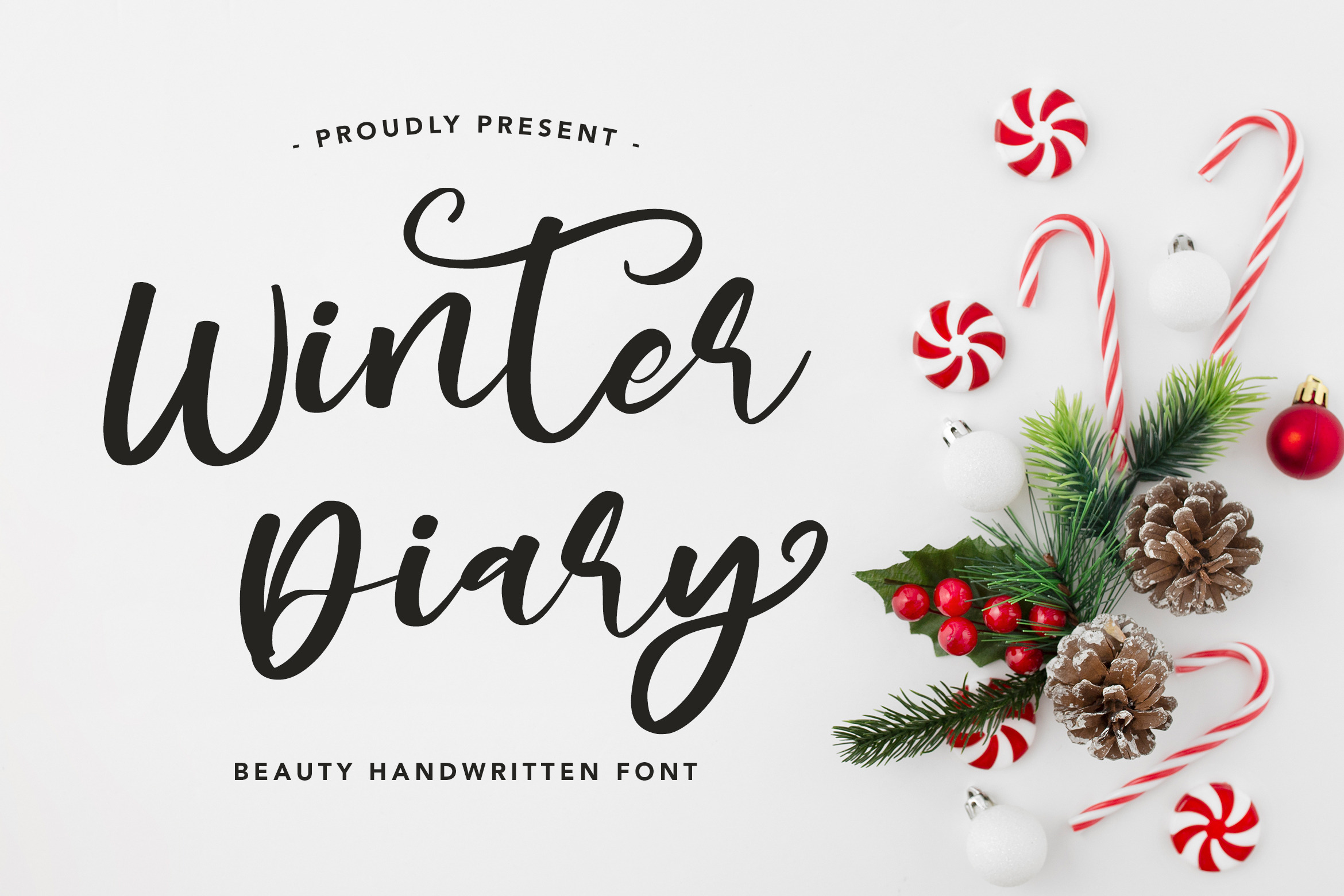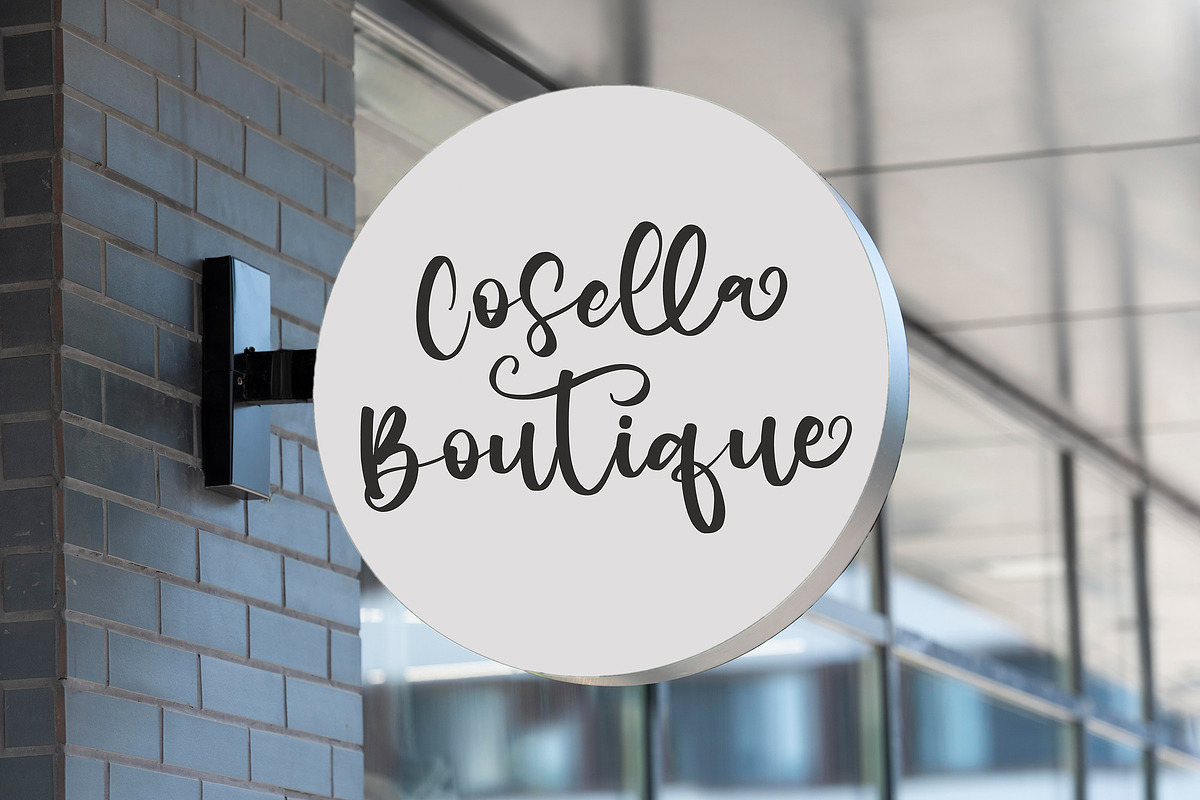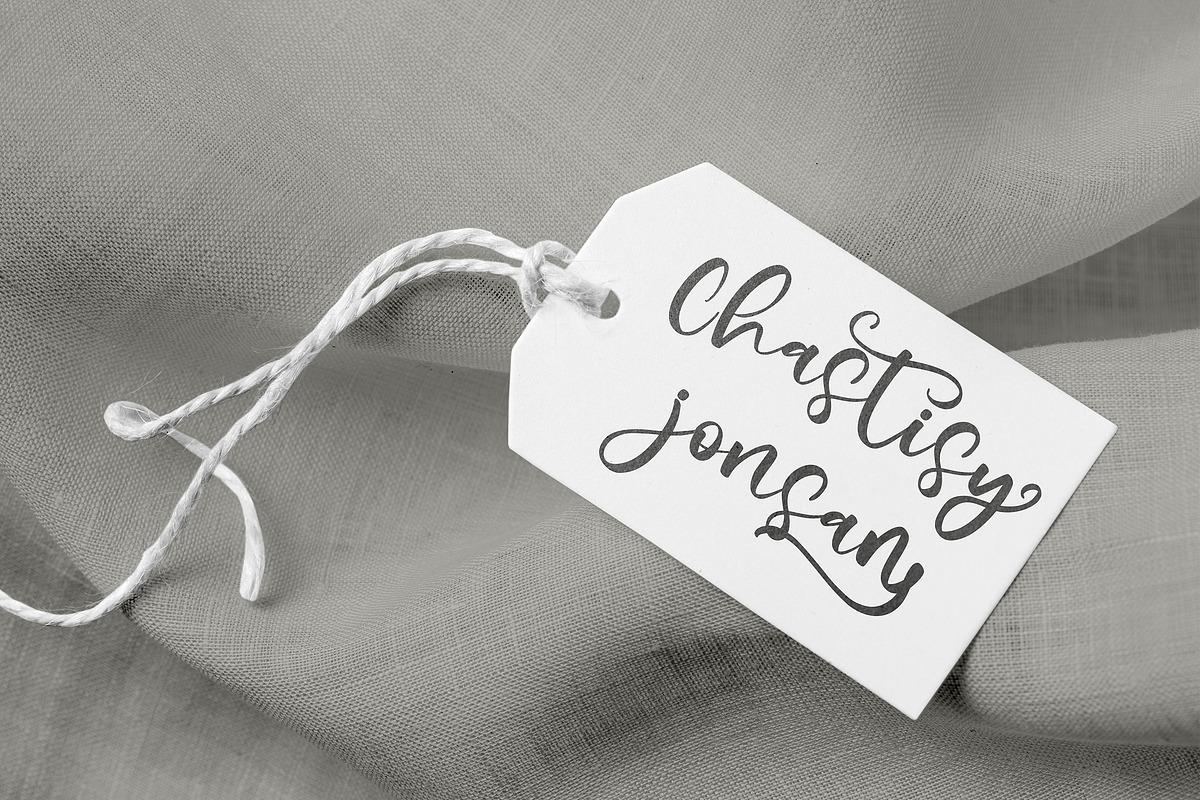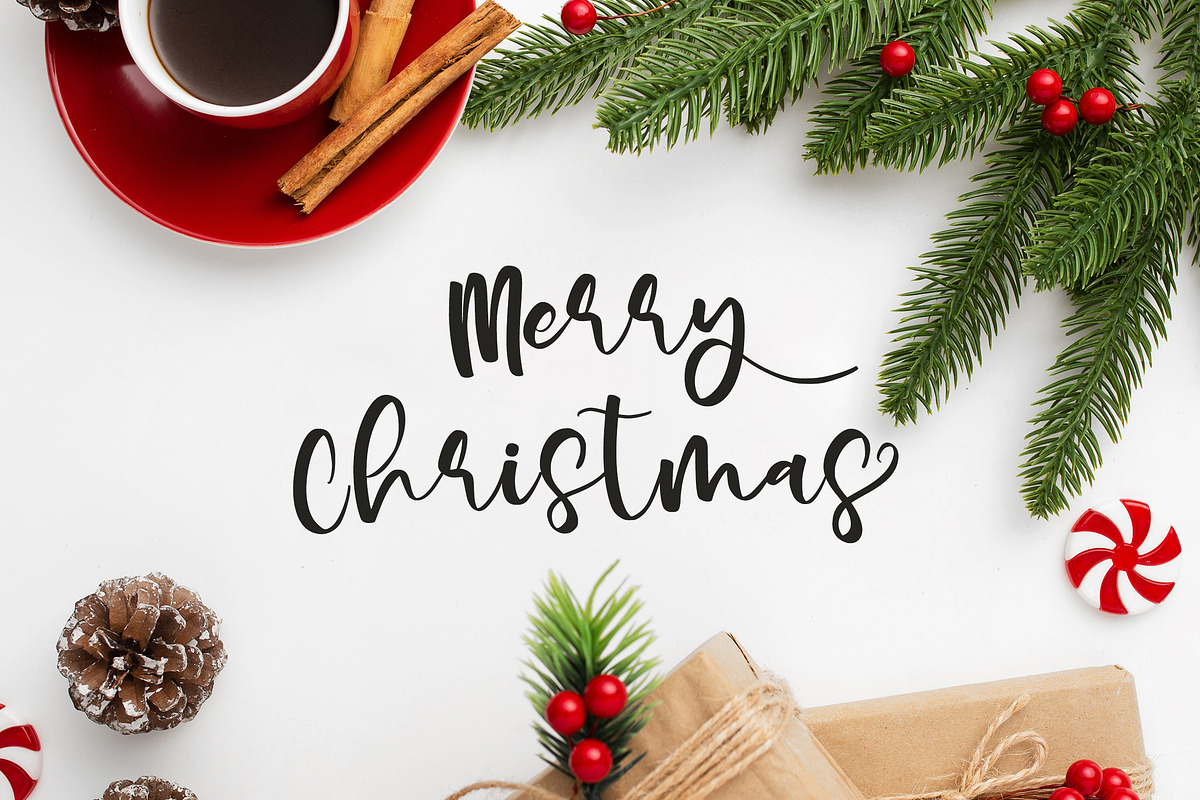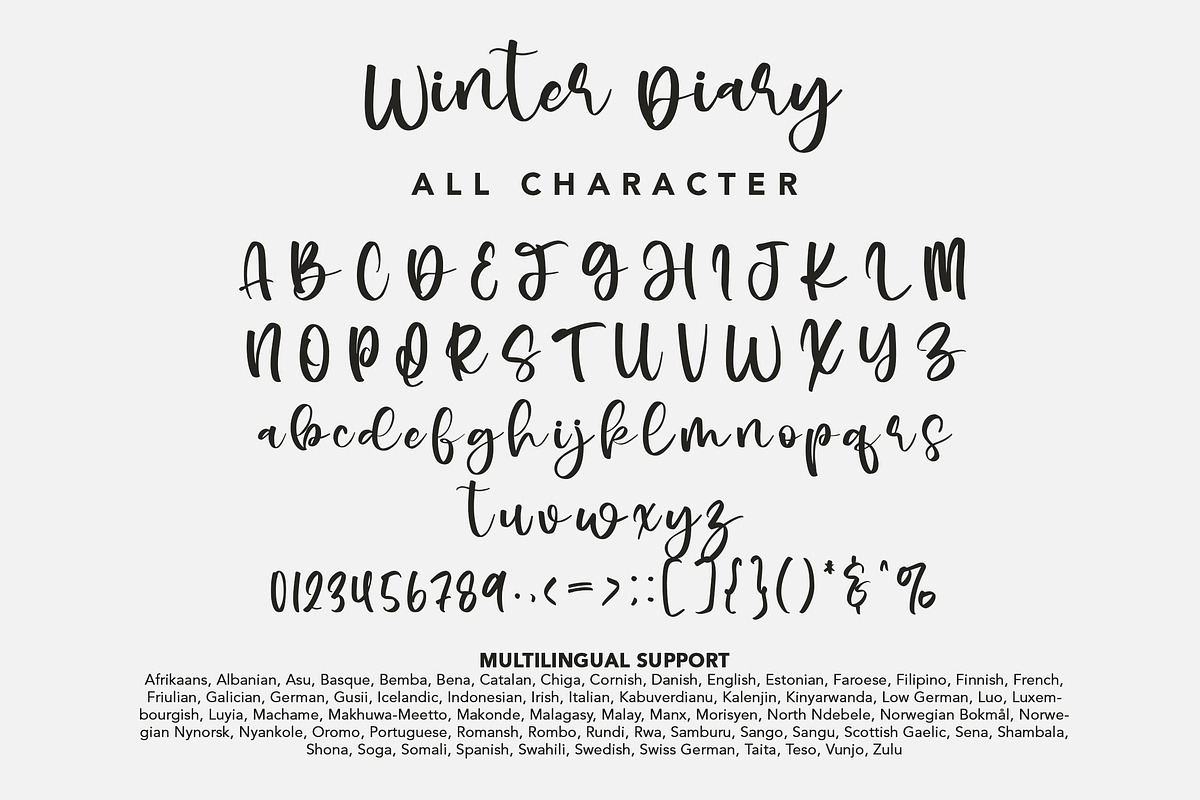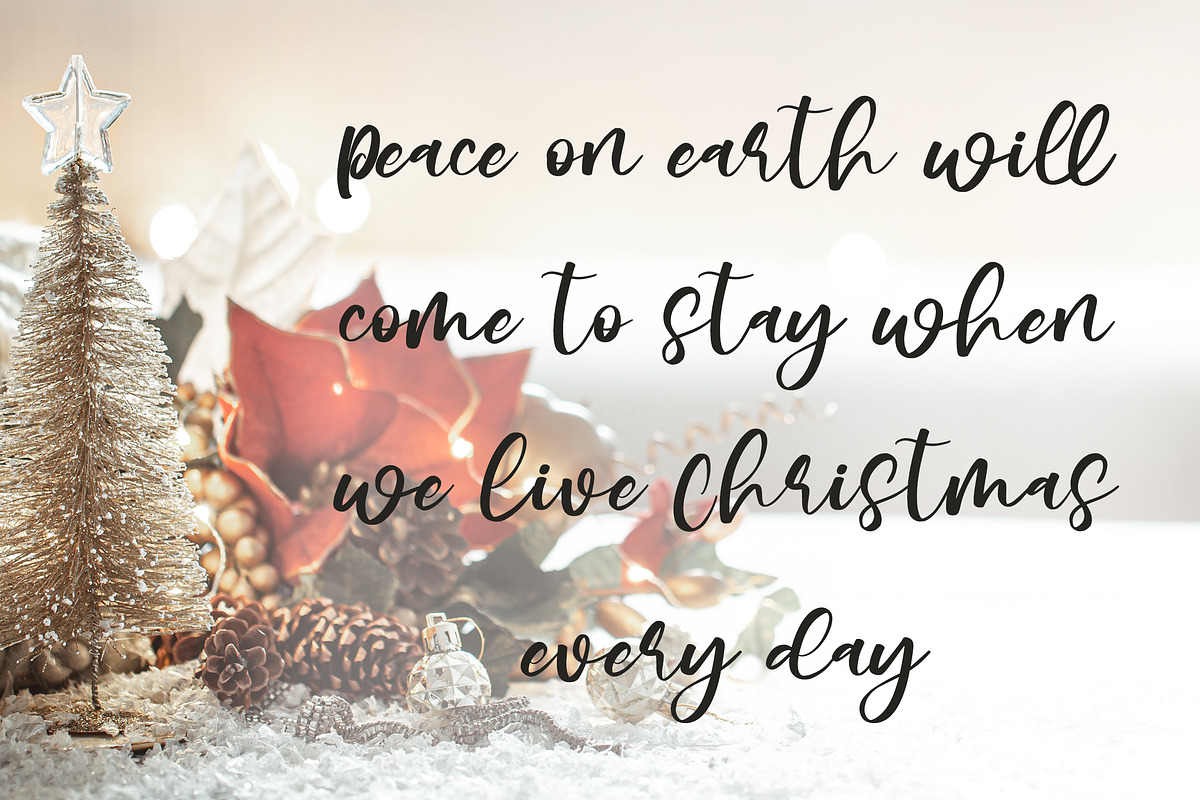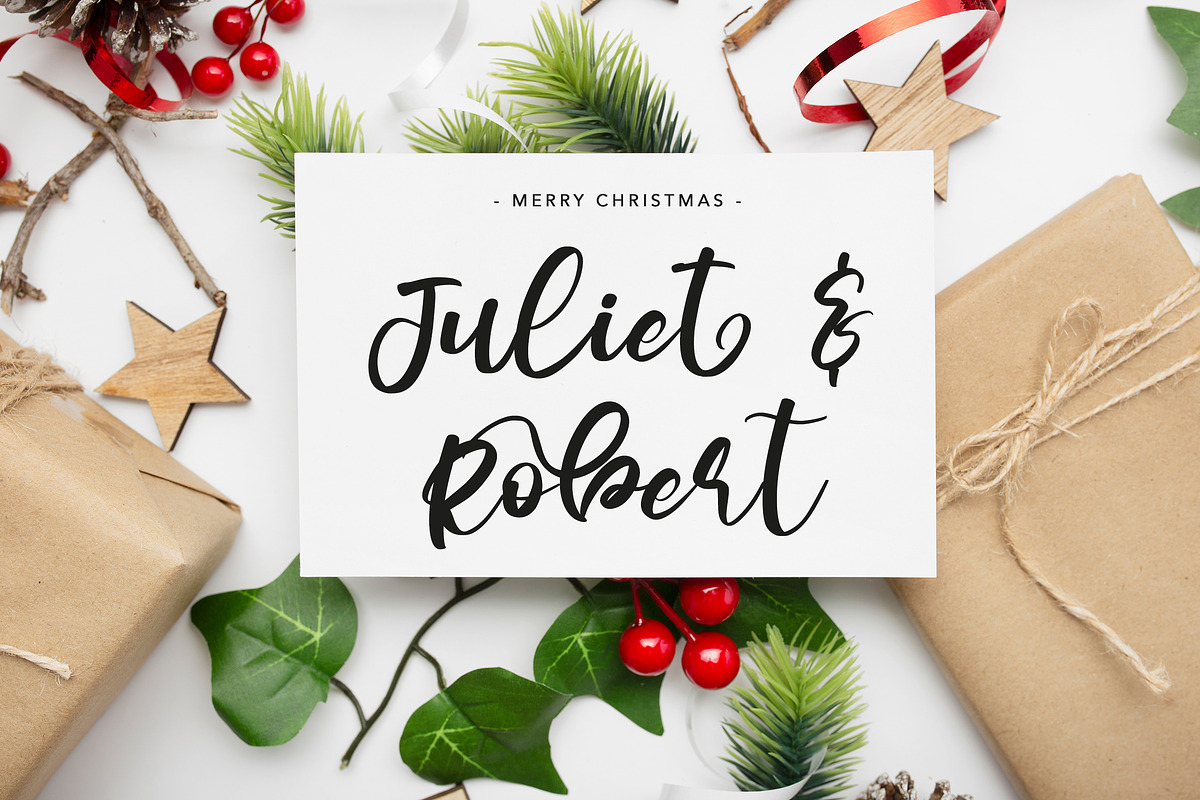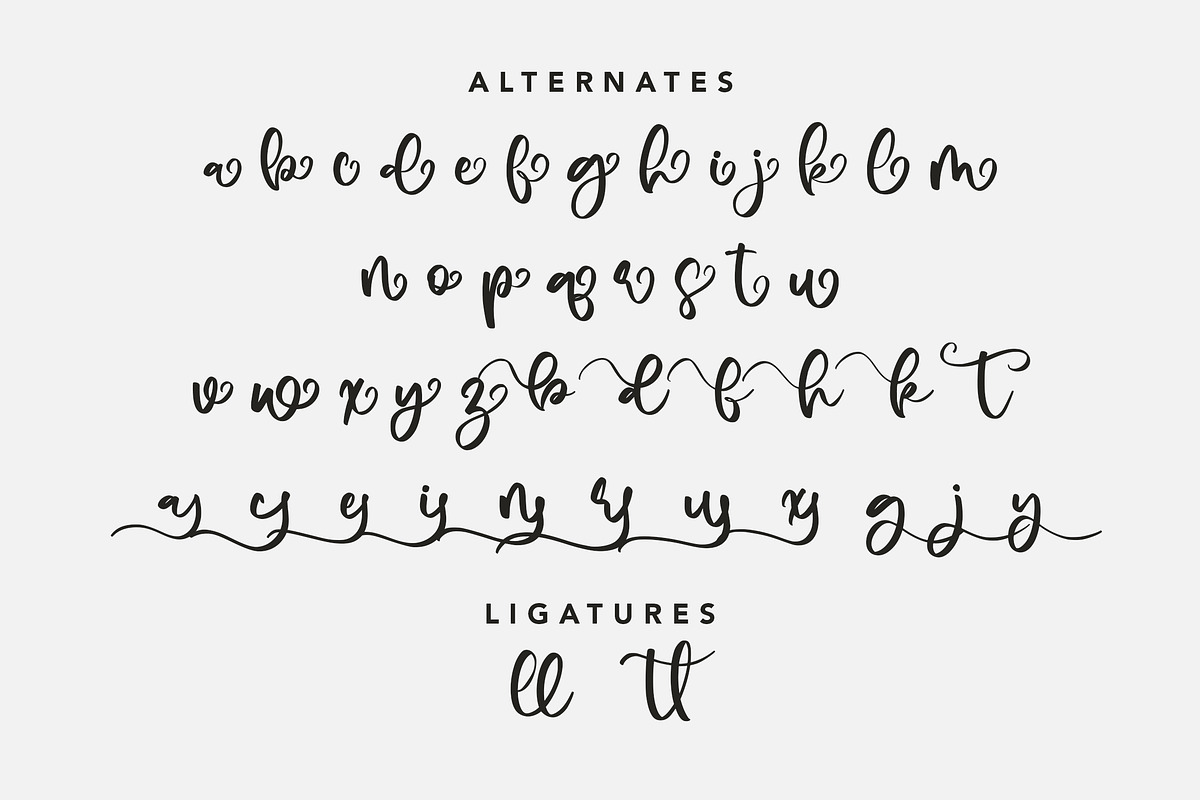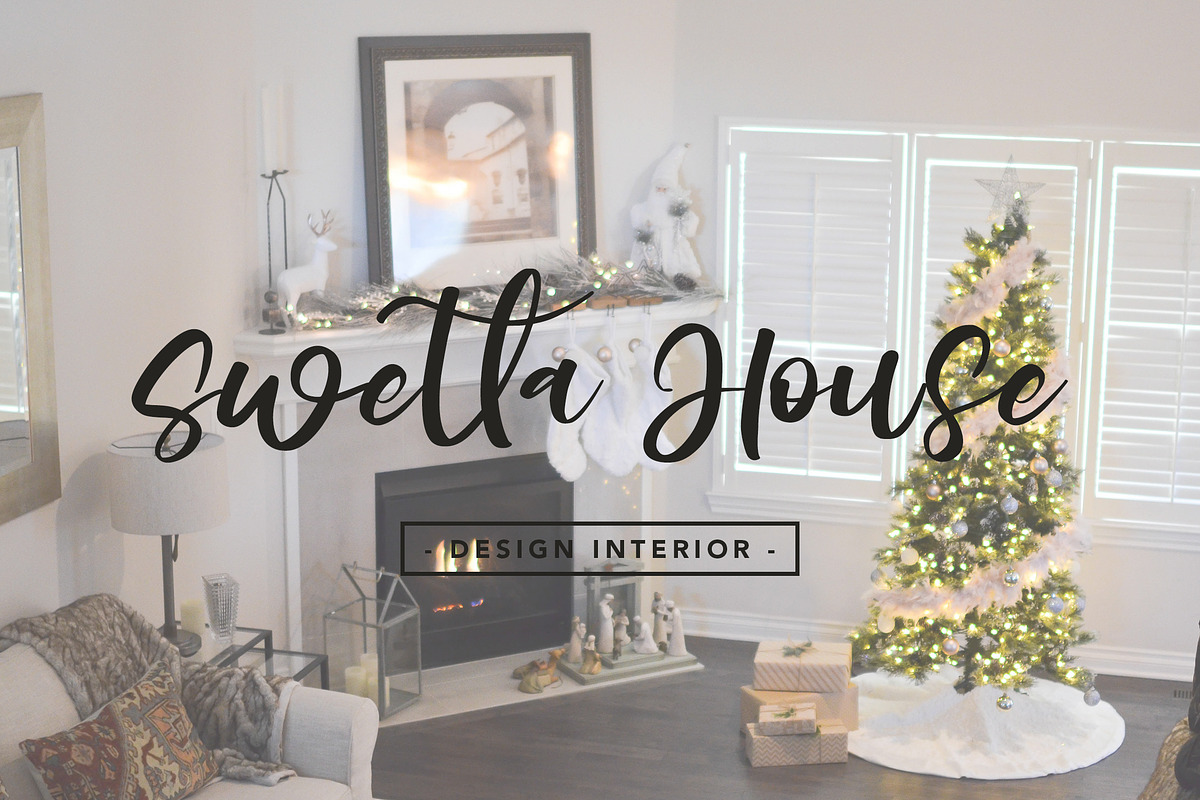
WinterDiary- Beauty Handwritten Font
WinterDiary - Beauty Handwritten Font contains a lowercase, uppercase, symbol, and also supports multi-language. There’s a lot of ligature in this font. WinterDiary - Beauty Handwritten Font also comes with ligatures, stylistic alternates and many more. this font suitable for fashion, branding, catalog and other design that you want.